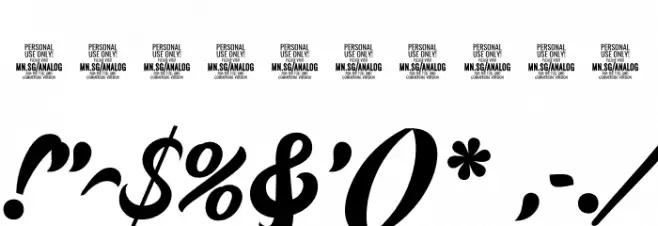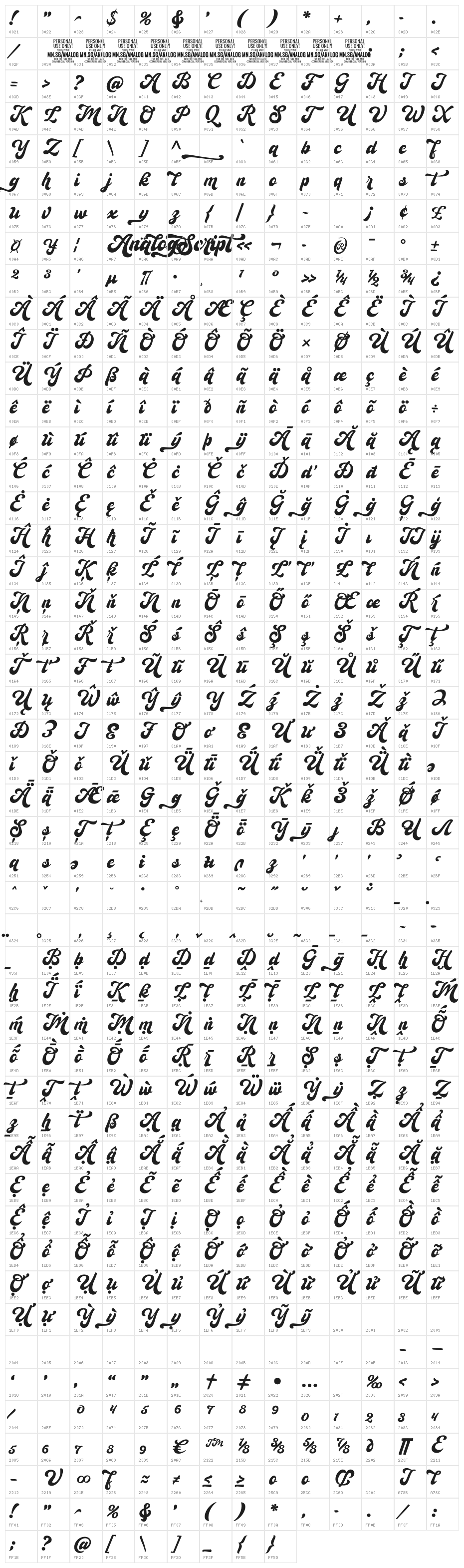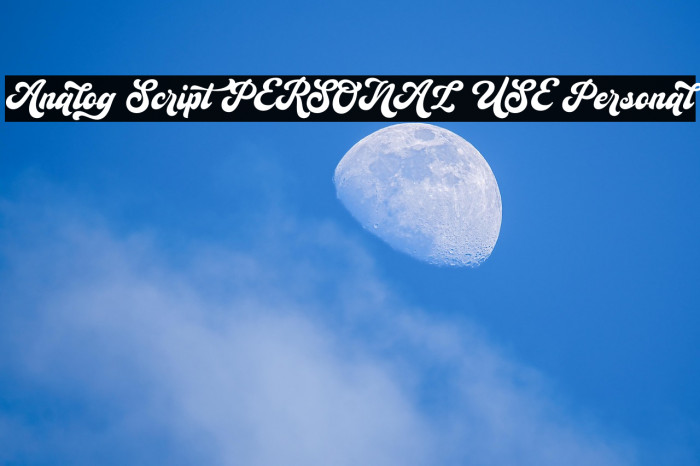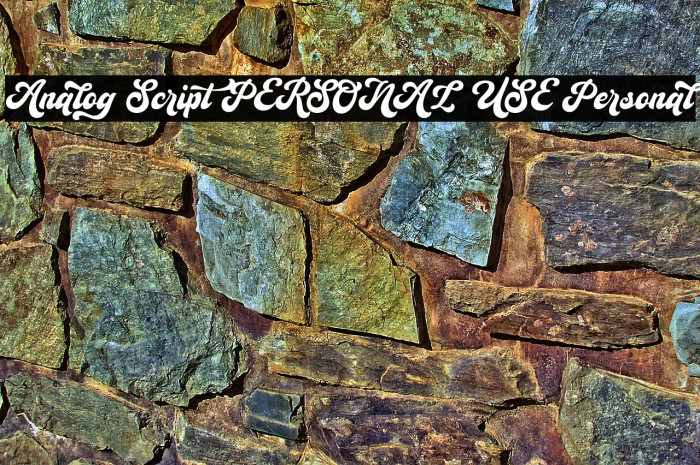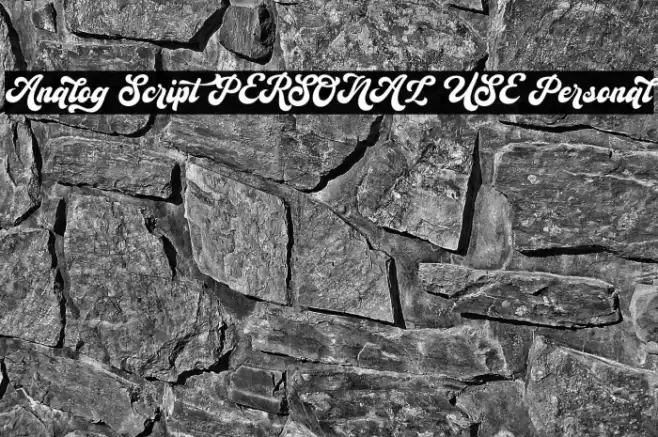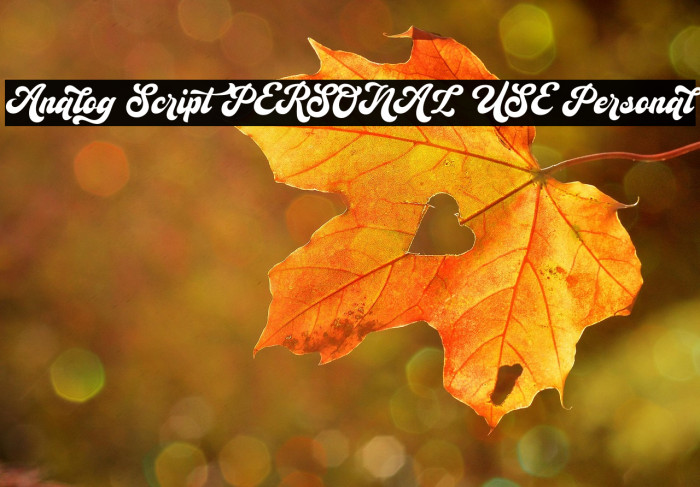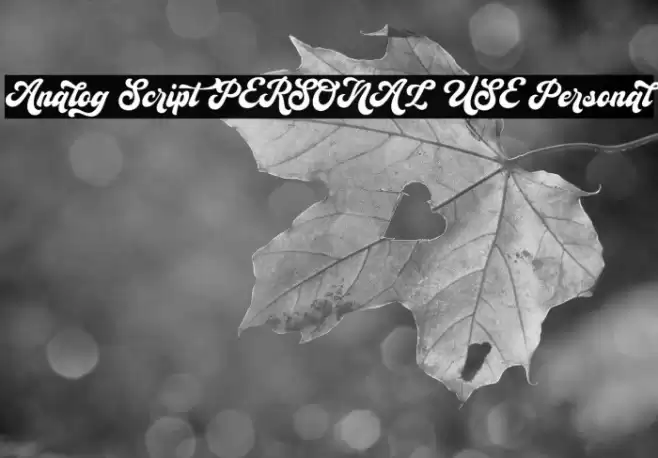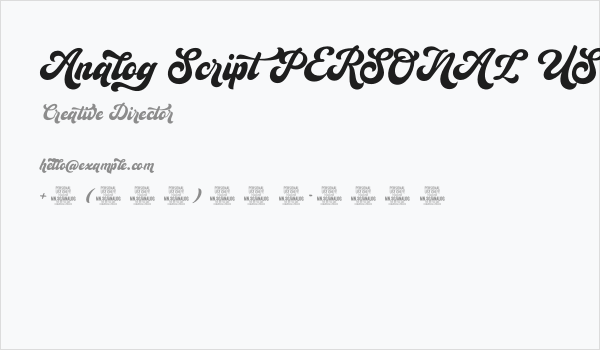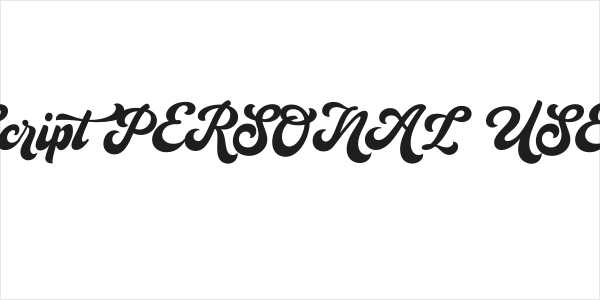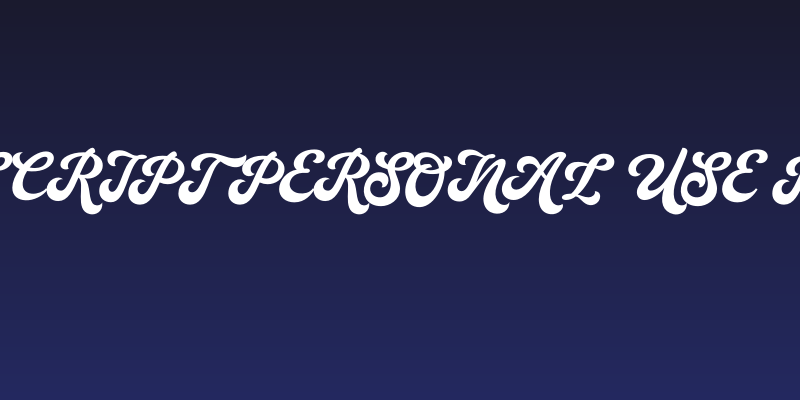
Analog Script PERSONAL USE Personal Font
Analog Script PERSONAL USE Personal Description
This font exhibits a bold, flowing script style with a strong presence. The characters are connected, creating a seamless and elegant appearance. The uppercase letters are ornate with flourishes, while the lowercase letters maintain a consistent flow. The numbers and special characters are designed to match the overall script aesthetic, adding to the cohesive look. The font's boldness and decorative nature make it stand out, ideal for projects that require a touch of sophistication and flair.